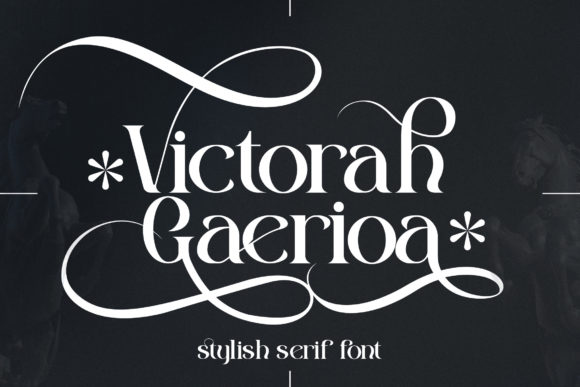
Introducing Victorah Gaerioa Font, the crown jewel of modern serif fonts, meticulously crafted by Storytype Studio. This timeless masterpiece exudes elegance and sophistication, making it the perfect choice for discerning designers seeking to leave a lasting impression.
Victorah Gaerioa's captivating curves and delicate serifs evoke a sense of nostalgia, while its contemporary design ensures it remains relevant in the ever-evolving digital landscape. Whether you're a seasoned professional or just starting your design journey, this font is the ultimate tool to elevate your creative projects.
Immerse yourself in the world of Victorah Gaerioa and discover endless possibilities. Its versatility knows no bounds, seamlessly adapting to a wide range of design projects. From eye-catching logos that command attention to branding that exudes professionalism, and quotes that resonate with your audience, Victorah Gaerioa is your trusted companion.
Unleash your creativity and let Victorah Gaerioa's graceful strokes transform your designs into works of art. Its PUA encoding grants you effortless access to a treasure trove of glyphs and swashes, empowering you to add intricate details and flourishes that captivate and enchant.